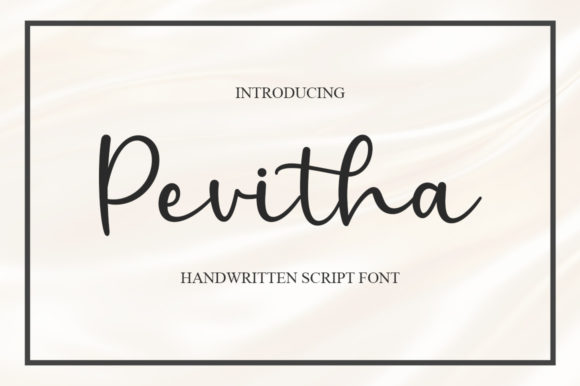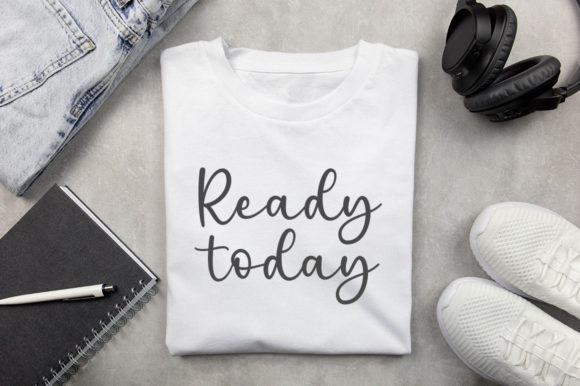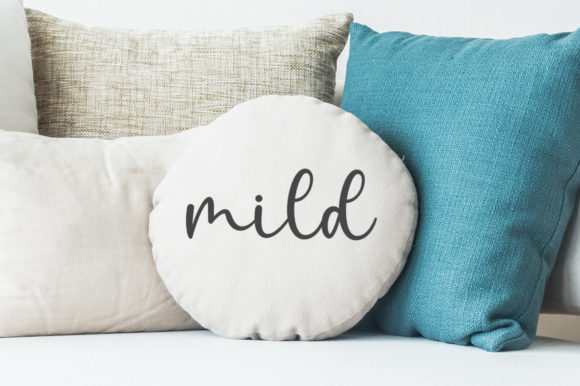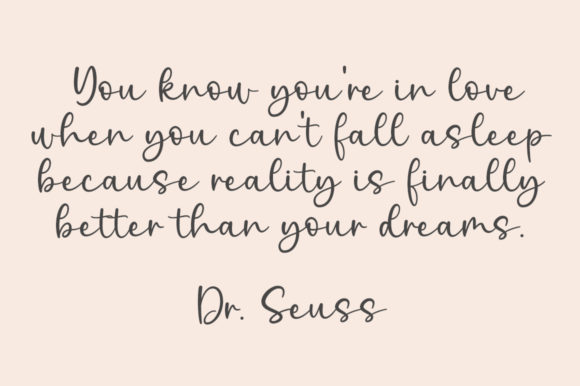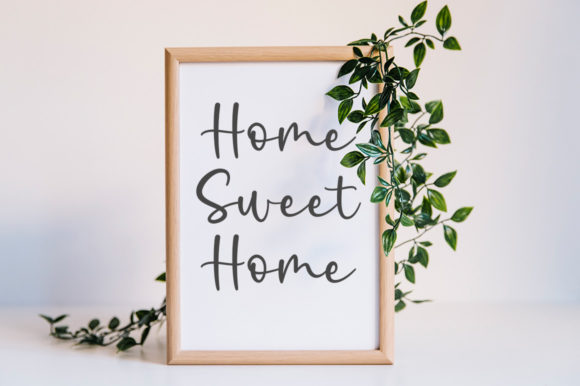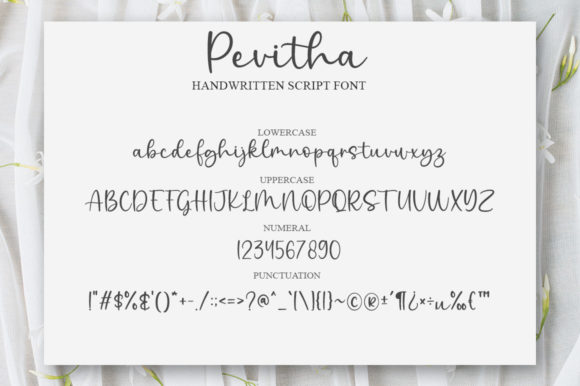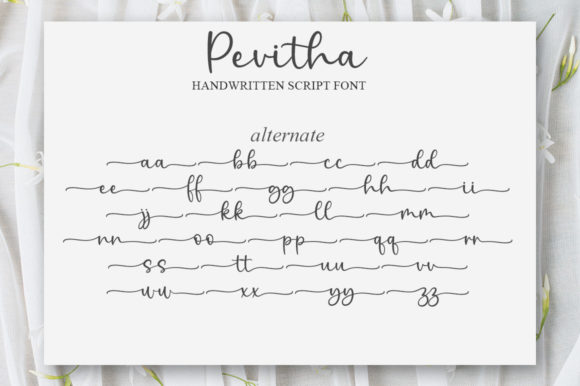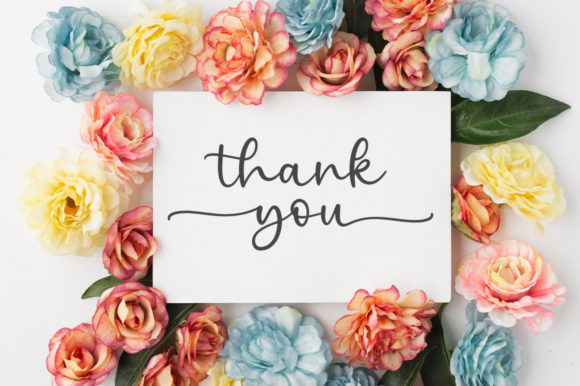
Pevitha Font
About Pevitha Font
“Pevitha” is a delicate, elegant, and flowing handwritten font that exudes charm and grace. This font’s beautifully crafted and well-balanced characters make it a versatile choice that complements a wide range of design styles.
The font’s delicate and flowing handwritten style exudes a sense of elegance and sophistication. Whether you’re working on projects that demand a touch of refinement, a hint of delicacy, or a graceful aesthetic, “Pevitha” can enhance your work with its artistically pleasing appearance.
The font’s versatility is highlighted by its ability to match various design projects. From creating stunning wedding invitations to crafting elegant logos, the font can elevate your designs with its distinct and harmonious charm.
The PUA encoding feature allows you to easily access all of the glyphs and swashes, empowering you to experiment with different design variations and create compositions that truly stand out.
In essence, “Pevitha” is more than just a font—it’s a creative tool designed to elevate your design projects. Its delicate and elegant handwritten style, along with its versatile applications, make it a valuable asset for designers striving to create designs that are visually appealing, refined, and effortlessly sophisticated, leaving a lasting impression.